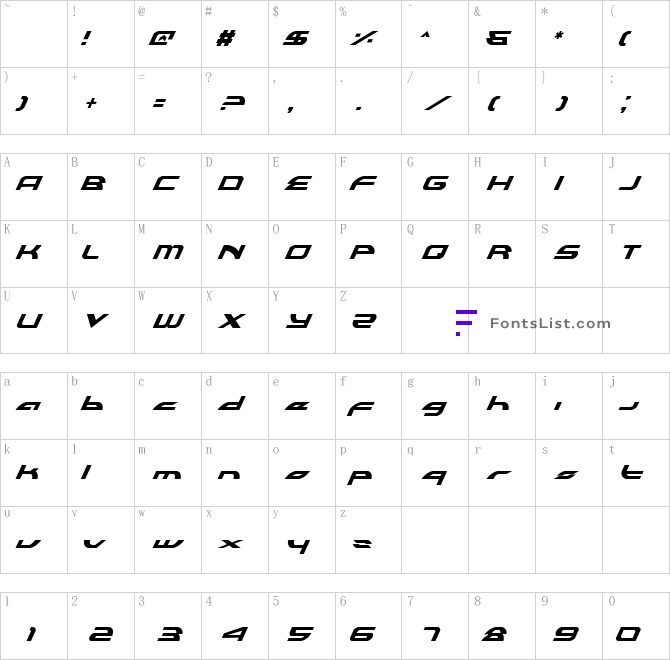
- Font Name:Alexis Lower Case Italic
Alexis-Lower-Case-Italic.ttf is a very beautiful artistic font, Alexis-Lower-Case-Italic.ttf is widely used in the design and printing of various books and pictures,Alexis-Lower-Case-Italic.ttf has a strong visual impact,Alexis-Lower-Case-Italic.ttf is a commonly used font in newspapers, magazines and books, and is used in posters, e-commerce Poster design, store design, logo design, font design and other fields.Alexis-Lower-Case-Italic.